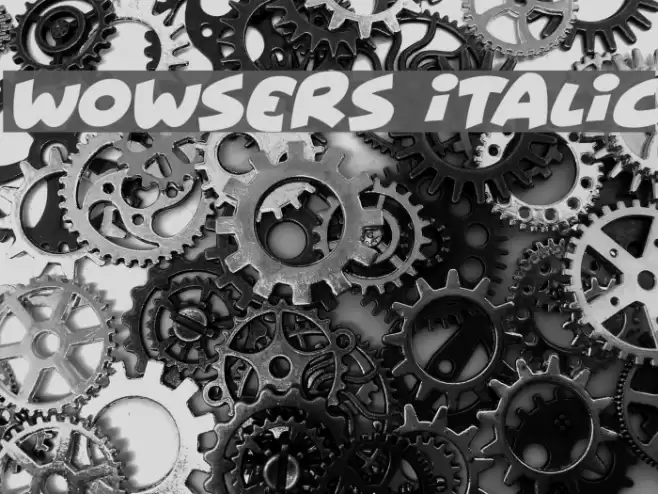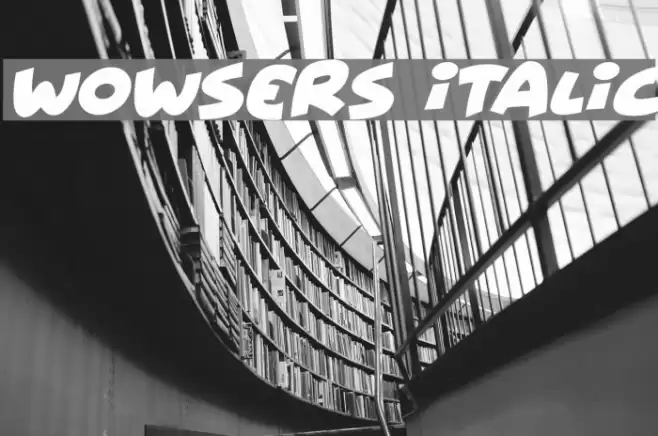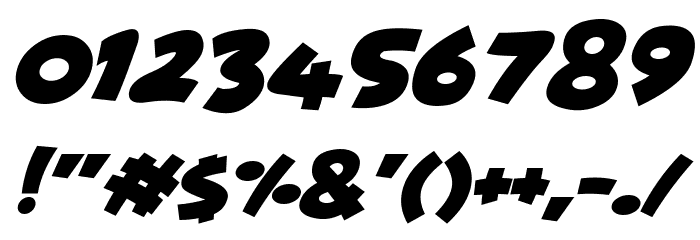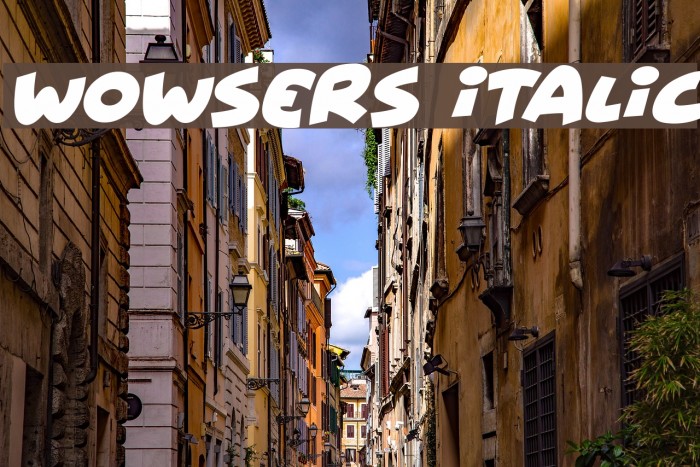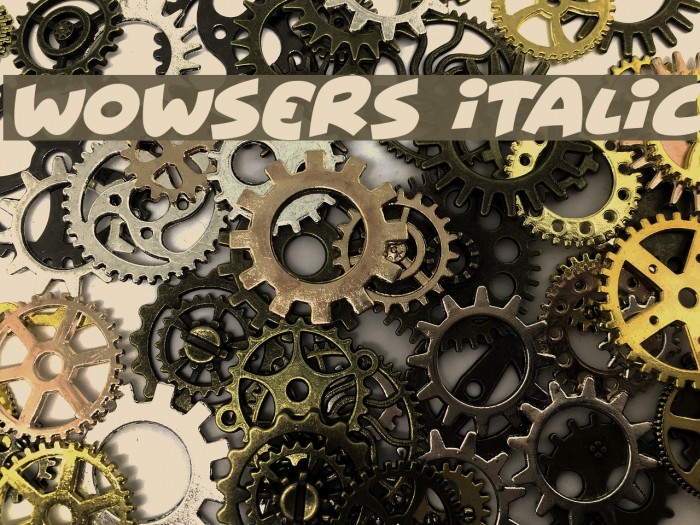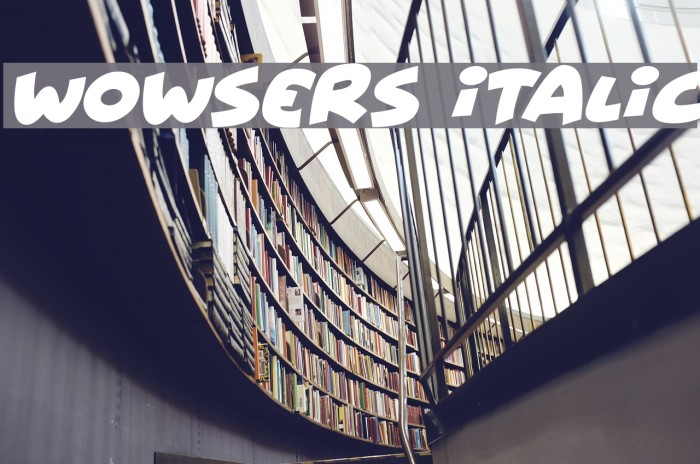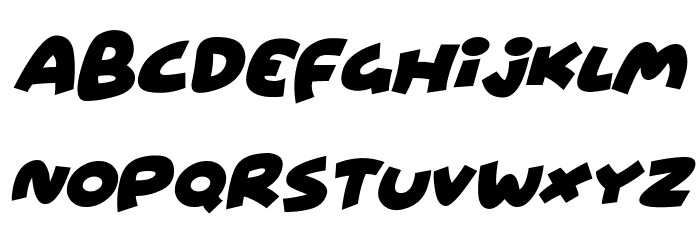
Wowsers Italic Font
Wowsers Italic Description
This font features a bold and playful design with a distinctive italic slant, giving it a dynamic and energetic appearance. The characters are rounded and slightly exaggerated, creating a sense of movement and fun. The uppercase and lowercase letters maintain a consistent style, with the lowercase letters mirroring the boldness of the uppercase. The numbers and special characters are equally bold and maintain the playful aesthetic. This font is ideal for projects that require a lively and engaging typeface, such as children's books, comic strips, or playful branding.
A bold, playful italic font with rounded, dynamic characters from Uncategorized fonts.
- Proposed Projects: Children's books, comic strips, playful branding, event posters.
- Overall Style: Playful, Energetic